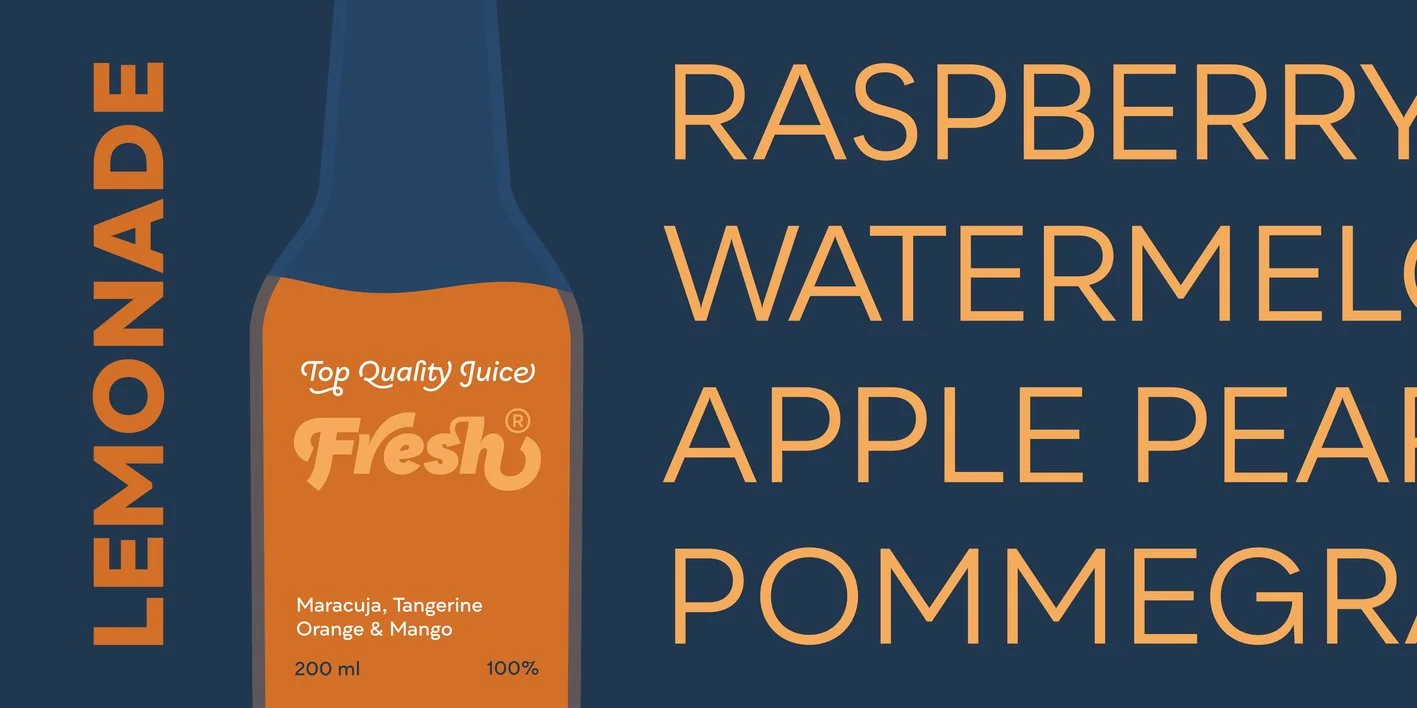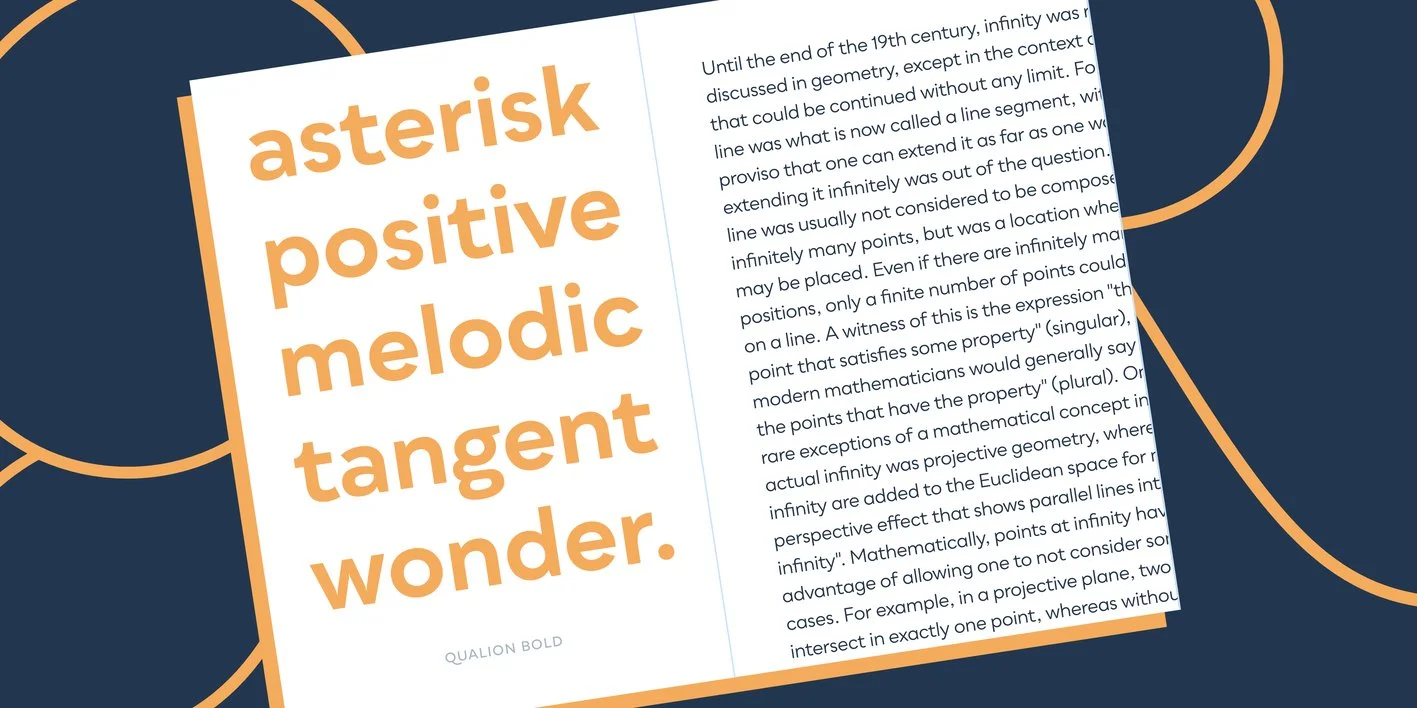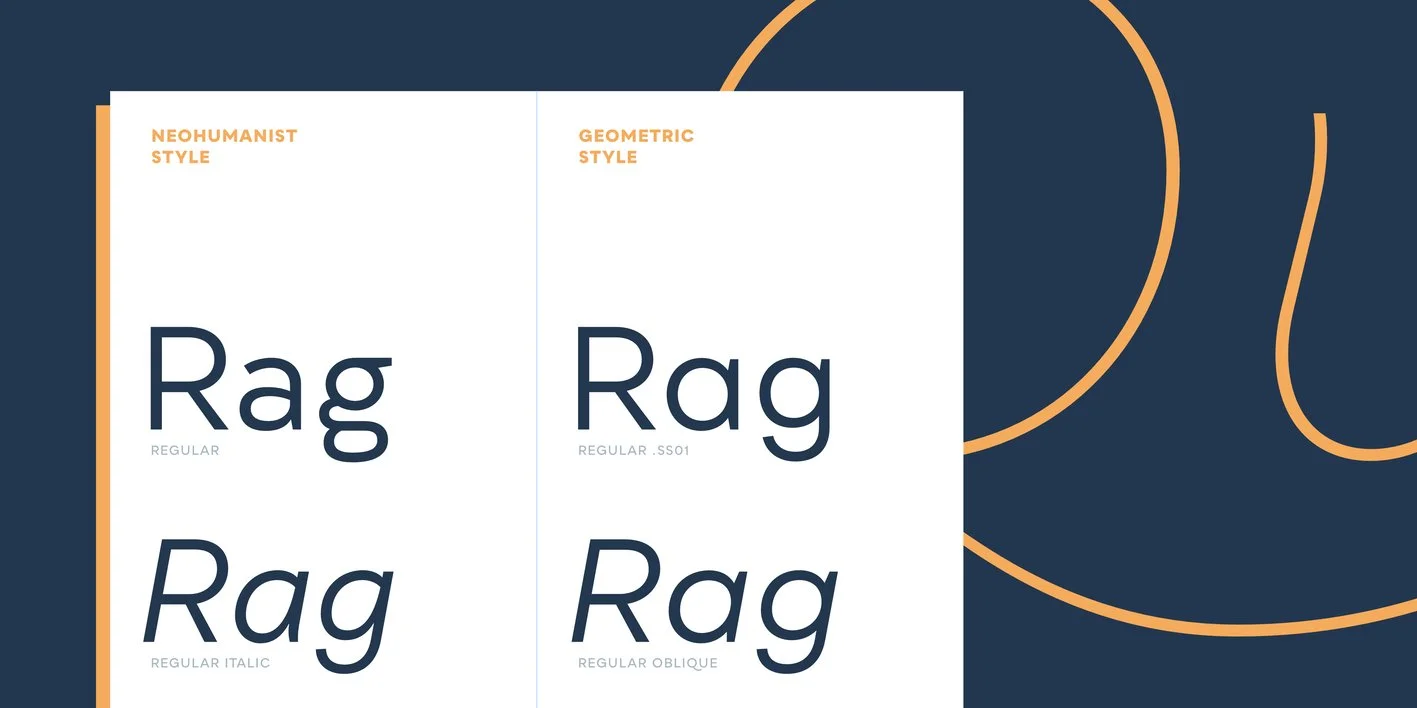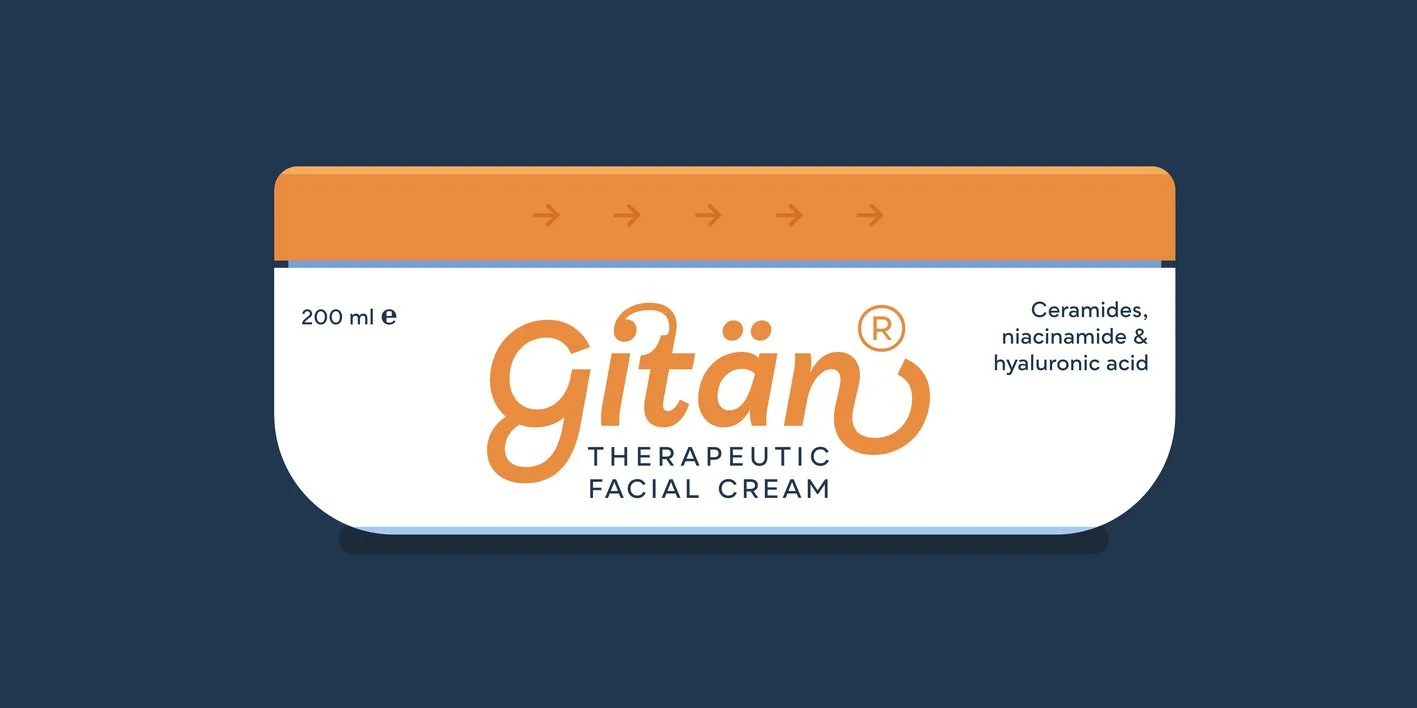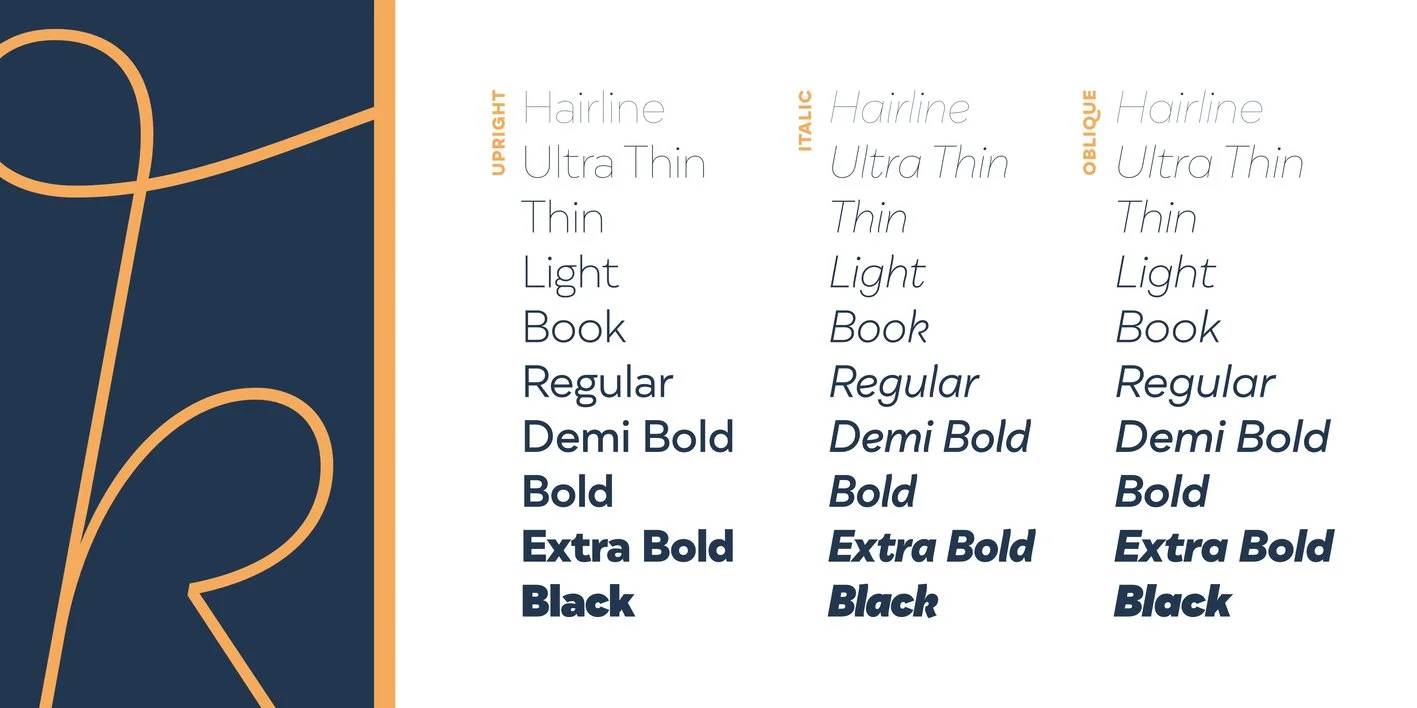
Qualion Font
Qualion Font is ideal for luxury brand identity systems, premium product packaging, high-end corporate communications, quality certification displays, excellence program materials, professional service branding, superior performance awards, prestige marketing campaigns, elite membership credentials, and distinguished achievement recognitions. This prestigious typeface brings quality distinction and premium sophistication to any excellence-focused design project.
Qualion Font is exciting because it represents the pinnacle of typographic refinement and the pursuit of absolute excellence, featuring meticulously balanced letterforms that embody the same dedication to perfection and quality craftsmanship that defines the world's most prestigious brands and organizations. Its distinguished character instantly conveys superior quality, refined taste, and the uncompromising standards that separate exceptional from ordinary.
Qualion Font family includes Ultra Light, Light, Regular, Medium, Bold, and Black weights with prestigious alternates, quality flourishes, excellence ornamental elements, and distinction symbols that enhance the premium aesthetic, providing luxury designers with sophisticated tools for creating typography that represents the highest standards of quality and professional excellence.
Qualion Font offers luxury brand professionals access to one of the most authentically prestigious typefaces available for premium design applications. This exceptional font has gained recognition among luxury brands, quality organizations, and excellence-focused institutions for its ability to communicate superior quality and premium distinction through typography that embodies the refined standards of world-class excellence.
Premium brand designers appreciate Qualion Font for its exceptional ability to convey luxury quality and professional distinction through elegantly crafted letterforms. The font's prestigious character and quality details create immediate associations with premium craftsmanship, superior performance, and the refined standards that define luxury brands and organizations committed to delivering exceptional quality and unmatched excellence.
The design philosophy behind Qualion Font celebrates the relentless pursuit of quality excellence and the dedication to superior standards that creates lasting value and builds trust through consistent delivery of exceptional performance, making it particularly effective for luxury brands, quality organizations, and premium service providers that refuse to compromise on excellence. Quality teams working on premium experiences find this font essential.
Whether used for luxury brand communications, premium quality certifications, or excellence recognition programs, Qualion Font delivers the perfect synthesis of quality distinction and premium sophistication. Its prestigious appeal and excellence authenticity make it an indispensable choice for organizations that represent the highest quality standards, deliver premium experiences, and embody the refined commitment to excellence that defines truly superior quality and professional distinction.